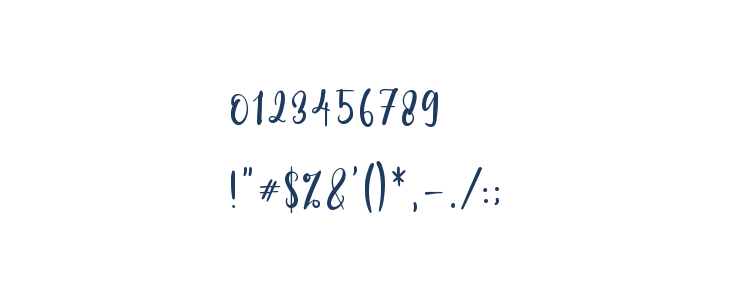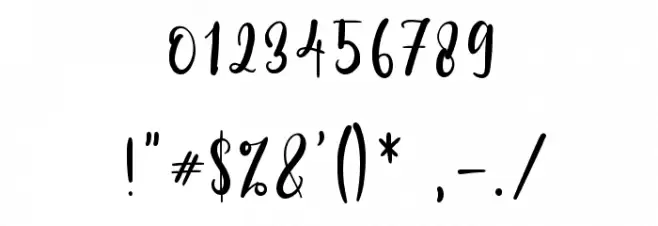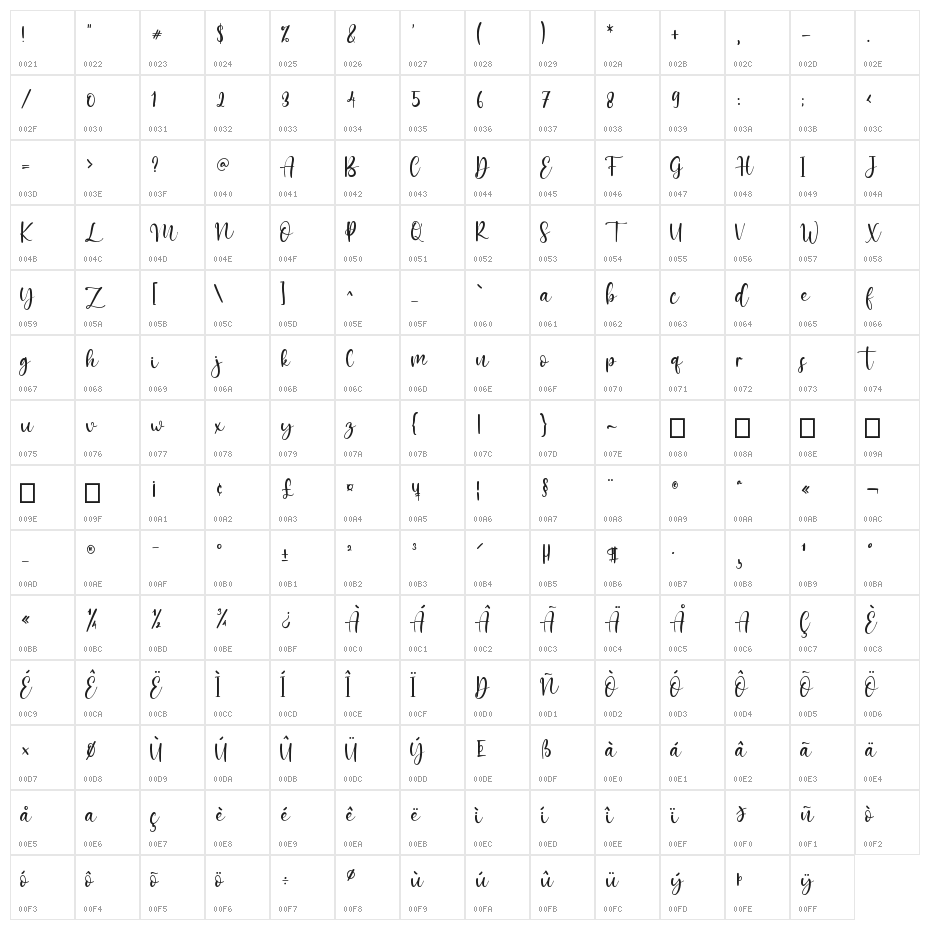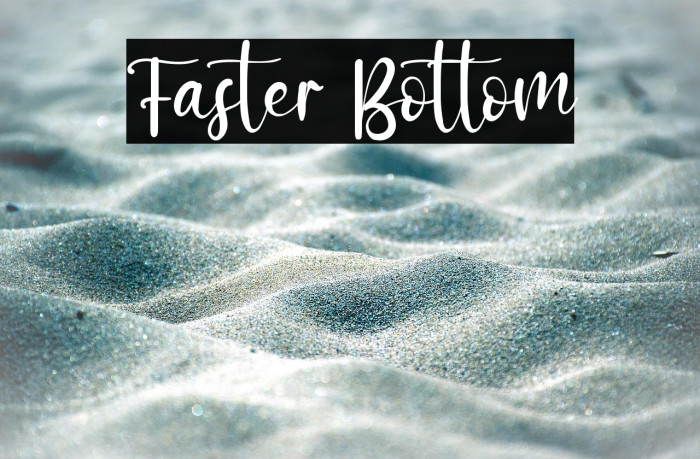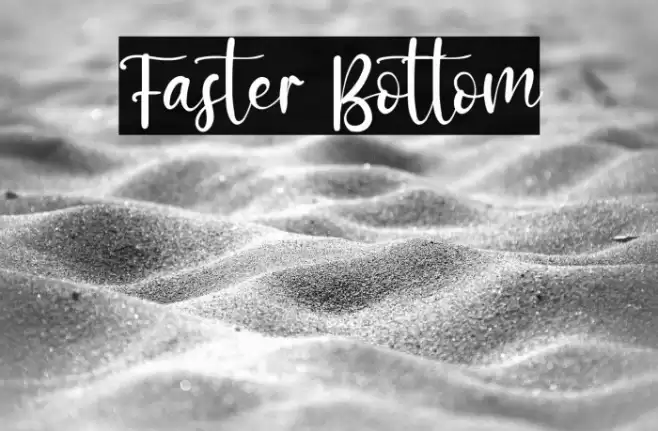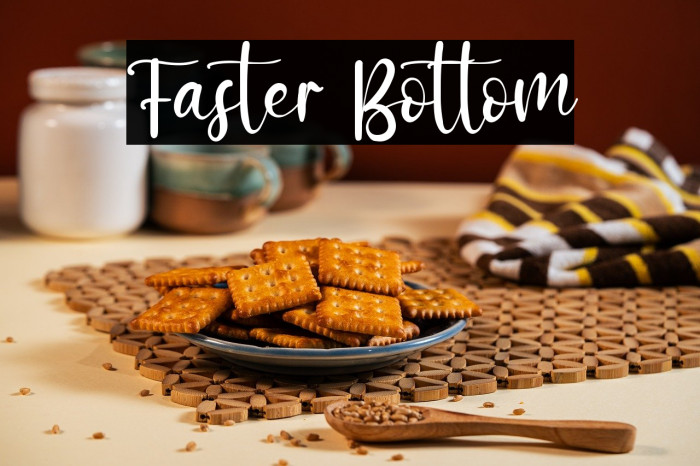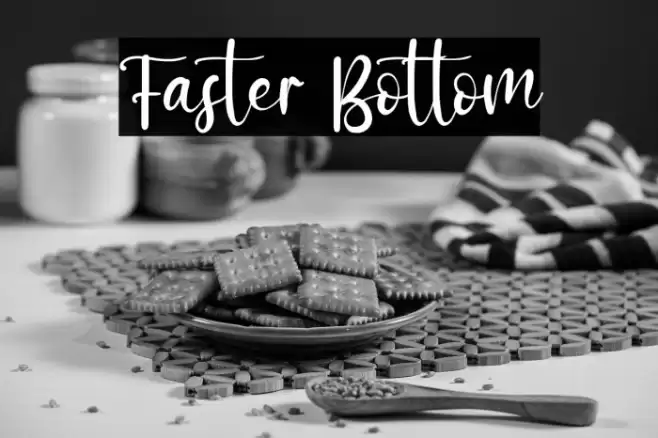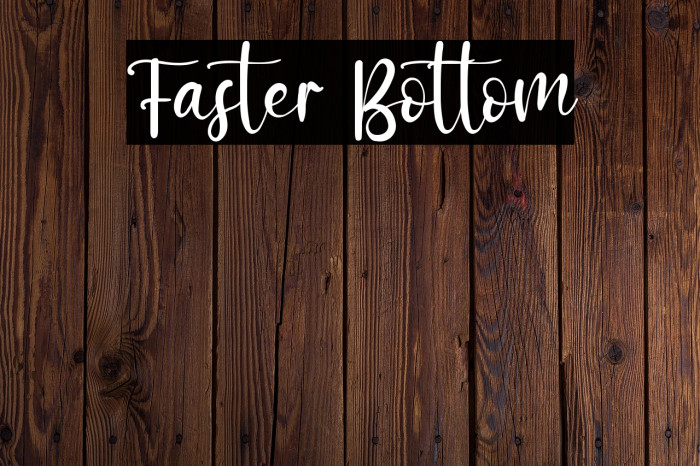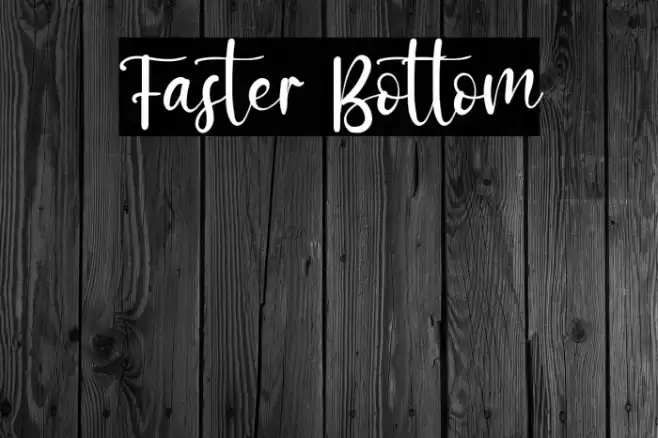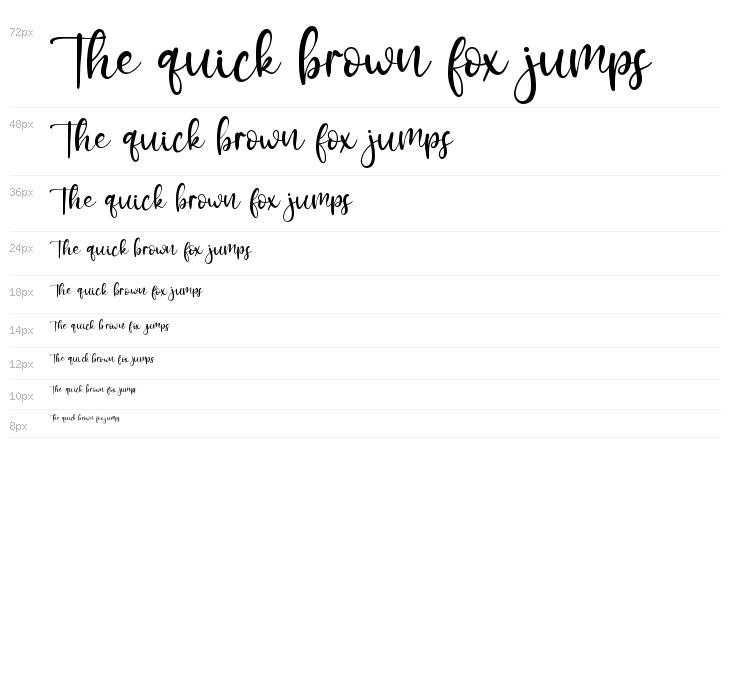
Faster Bottom Font
Faster Bottom Description
This font features a playful and elegant script style with a handwritten appearance. The uppercase letters are tall and slender with graceful loops and curves, while the lowercase letters maintain a consistent flow with smooth connections. The numerals are distinct and slightly more structured, providing a nice balance to the overall design. Special characters are creatively integrated, adding to the font's whimsical charm. The strokes vary in thickness, giving a dynamic and lively feel. This font is perfect for projects that require a personal touch or a sense of elegance.